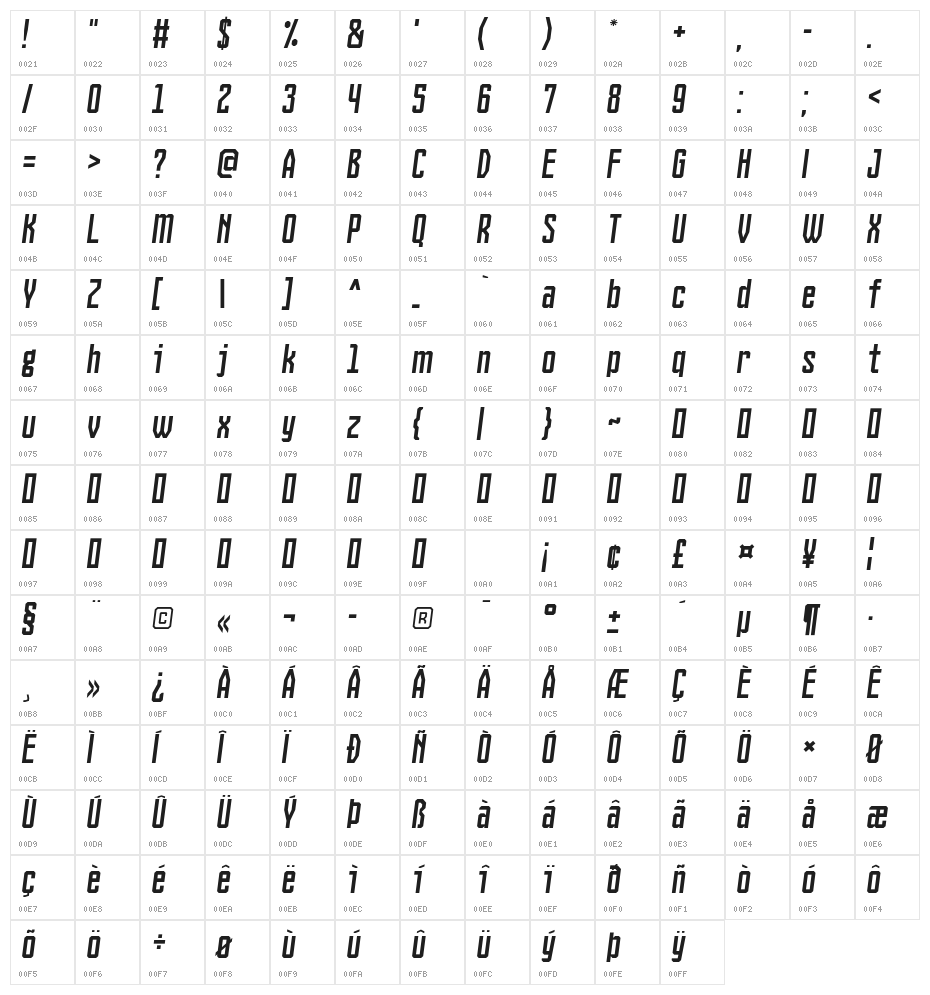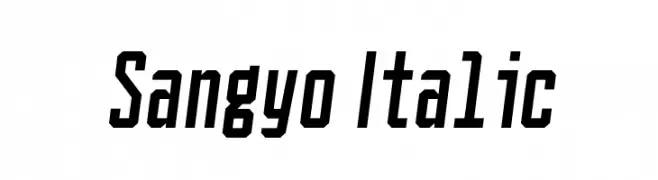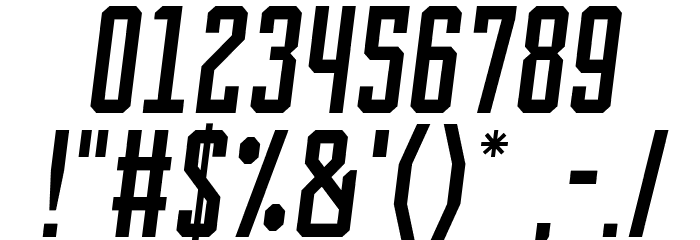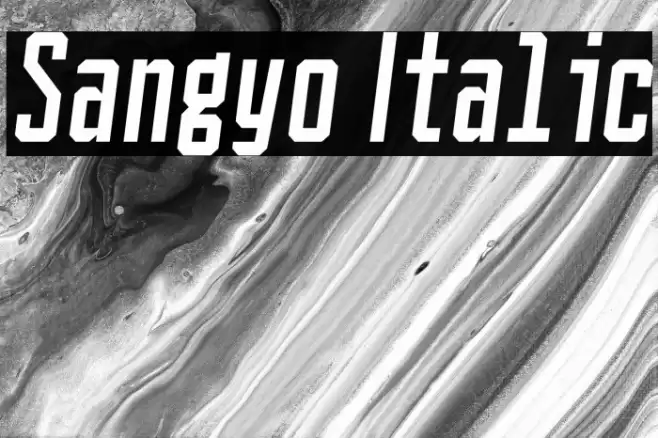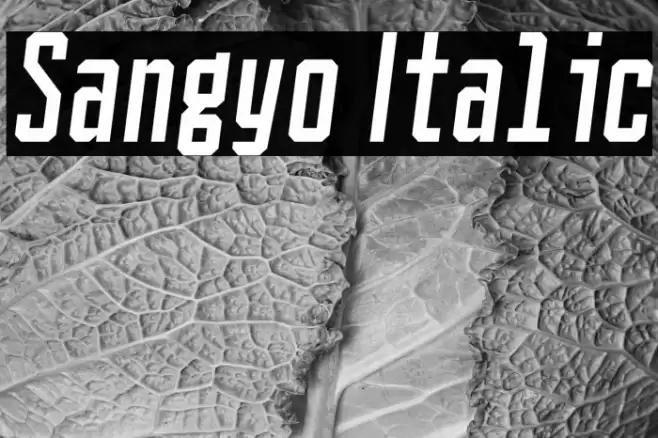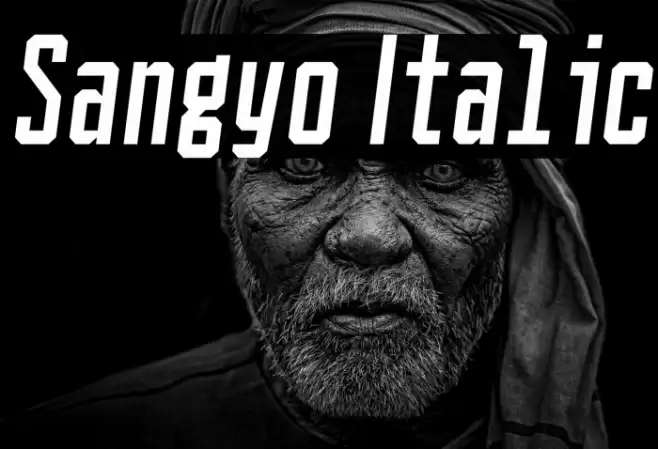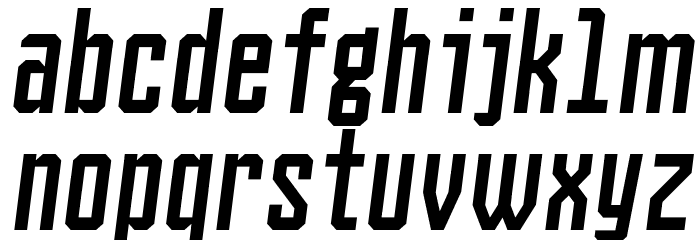
Sangyo Italic Font
Sangyo Italic Description
This font features a bold and dynamic design with a distinct italic slant, giving it a sense of motion and energy. The characters are tall and narrow, with sharp angles and clean lines that create a modern and futuristic appearance. The uppercase and lowercase letters maintain a consistent style, while the numerals and special characters complement the overall aesthetic. This font's geometric structure and uniform stroke width contribute to its sleek and professional look, making it suitable for a variety of design applications.
| Name | Sangyo Italic |
| Font Family | Sangyo |
| Style | Sangyo-Italic |
| Weight | Italic |
| Categories | Futuristic |
| Italic | Yes |
| Width | Condensed |
| Use Case | Headlines, Logos |
| Proposed Projects | Ideal for branding, sports team logos, technology-related designs, and dynamic posters. |